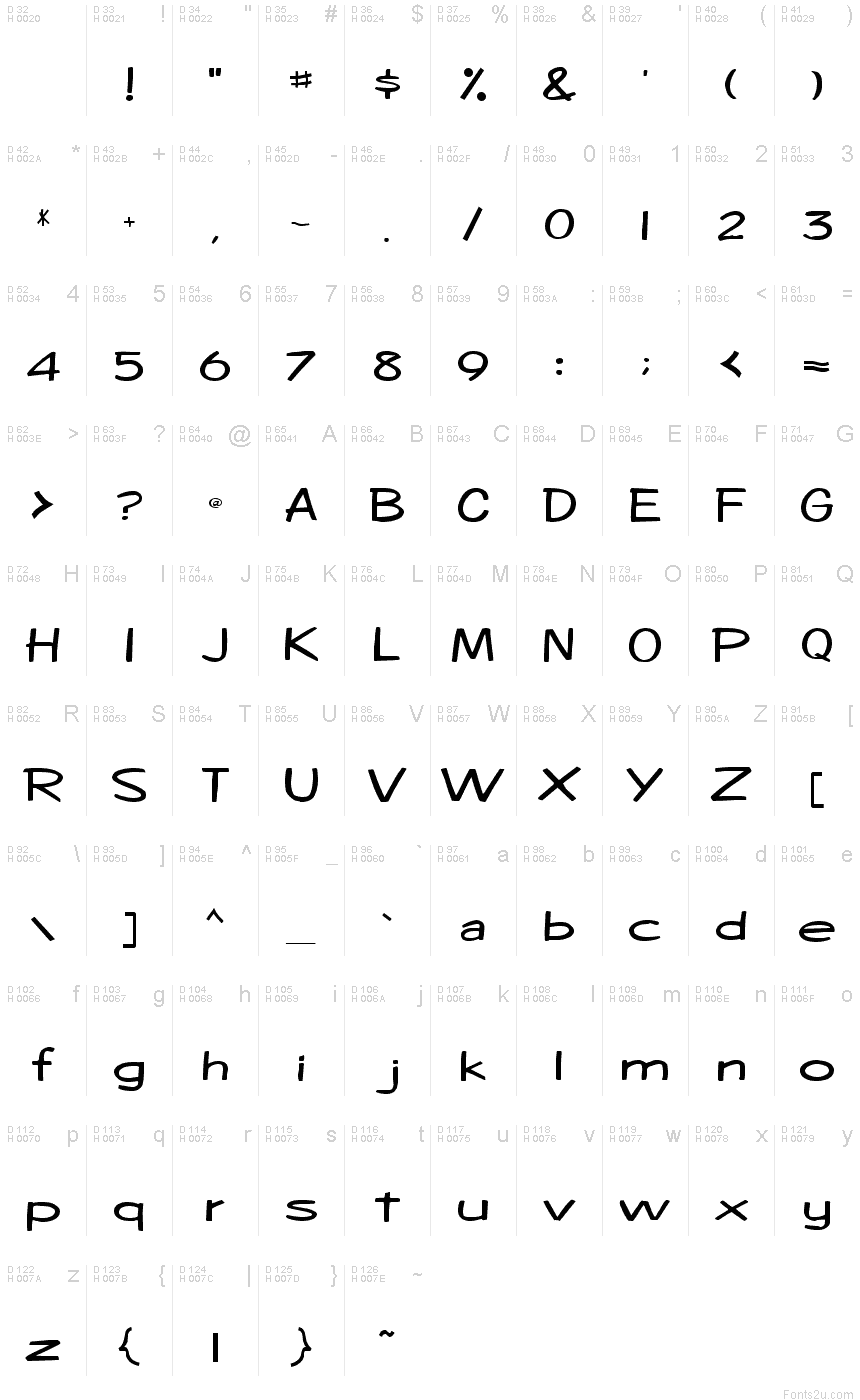
Jeff-Chris Bold
Jeff-Chris Bold font by CompuWorks is a free handwritten typeface from the Jeff-Chris family, with chunky, inky strokes and a friendly wobble that feels like a marker skating across paper. Its tall curves and loose rhythm keep words lively, while the bold weight stays readable even when you’re working fast or printing small.
Using Jeff-Chris Bold, you’ll get instant personality on kids’ party invites, café menus, sticker sheets, craft packaging, classroom posters, social posts, and DIY signage. This free font also plays nicely with a clean sans for body copy-try a simple geometric face and let Jeff-Chris handle the headlines at larger sizes.